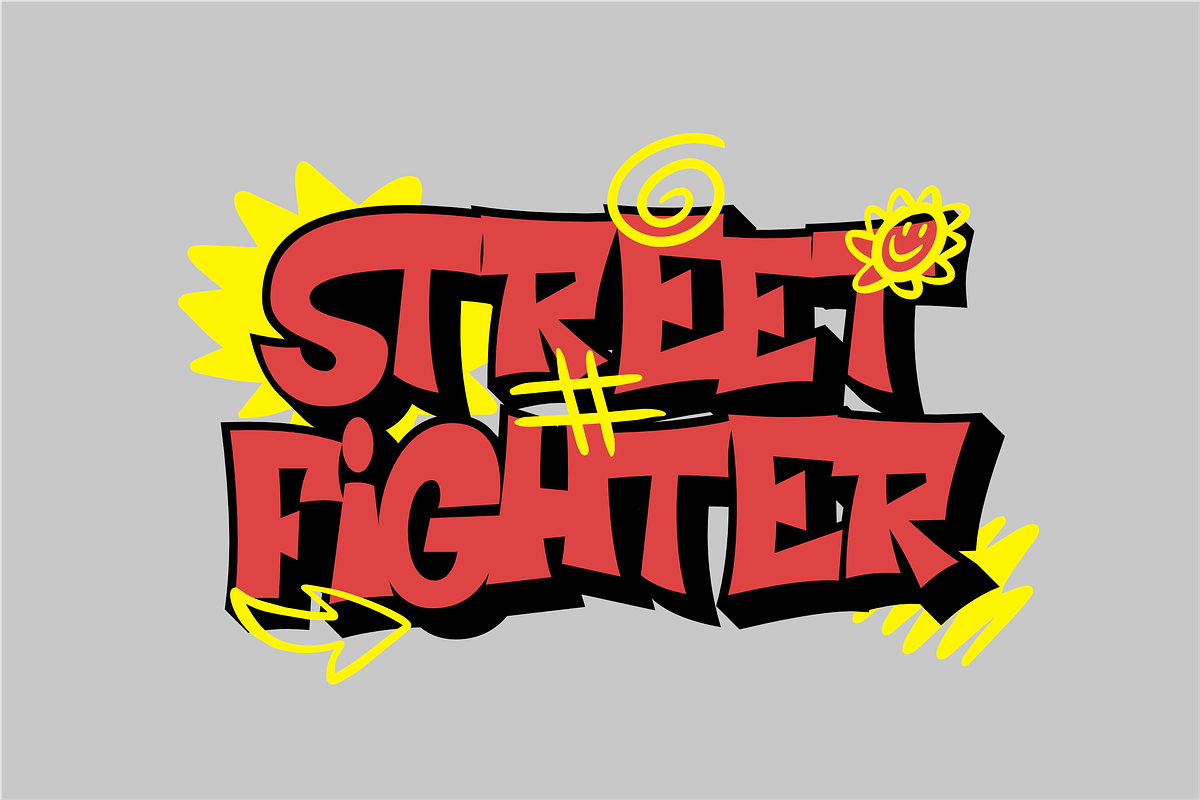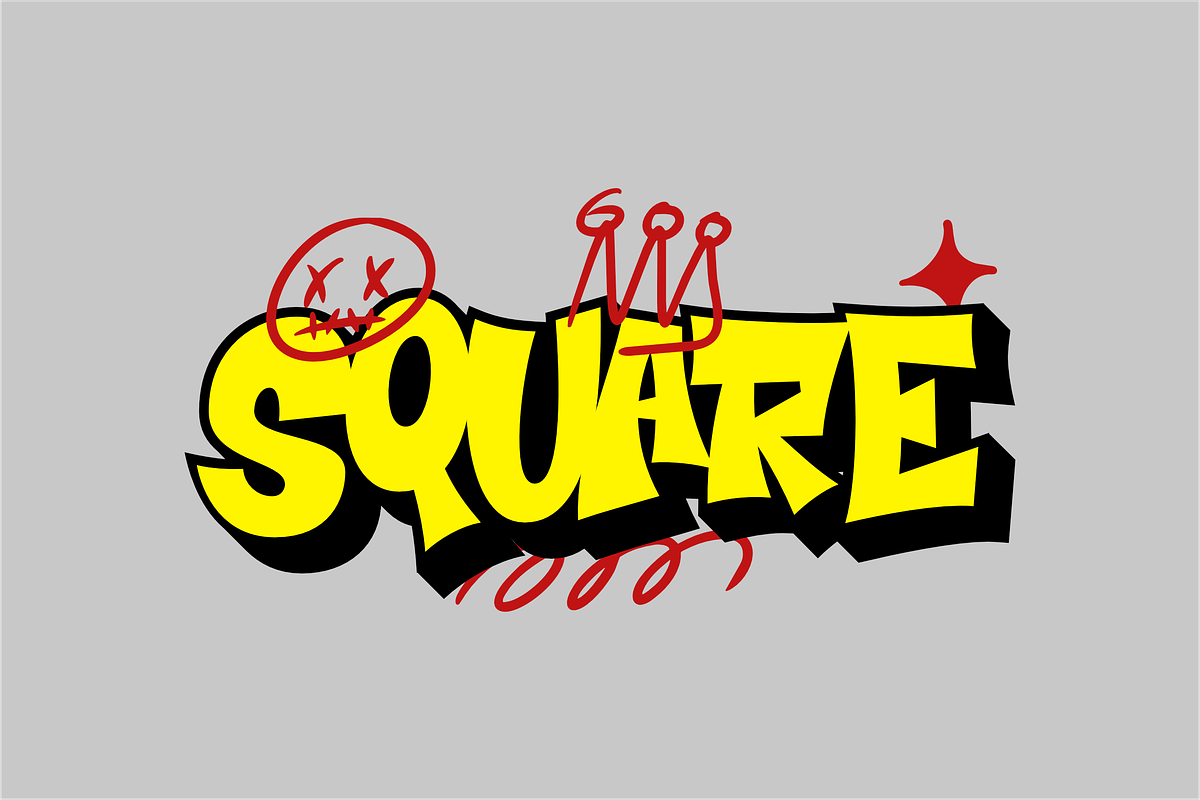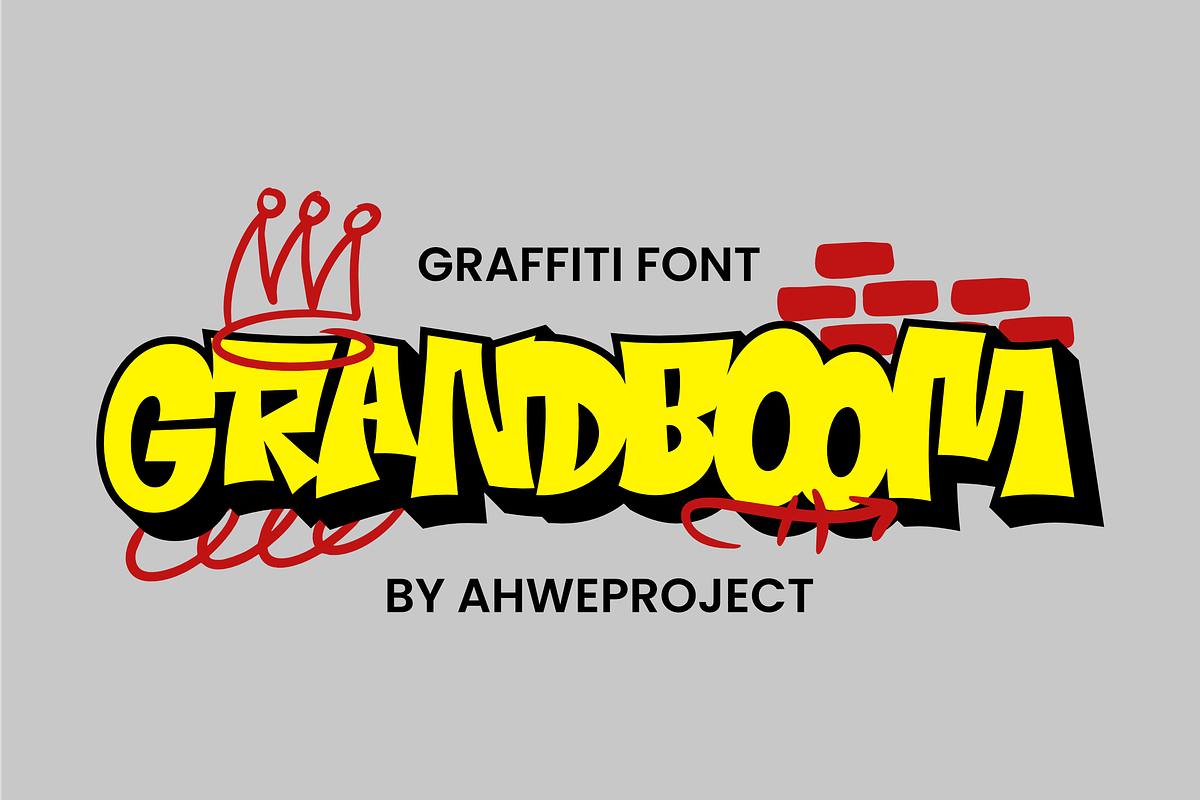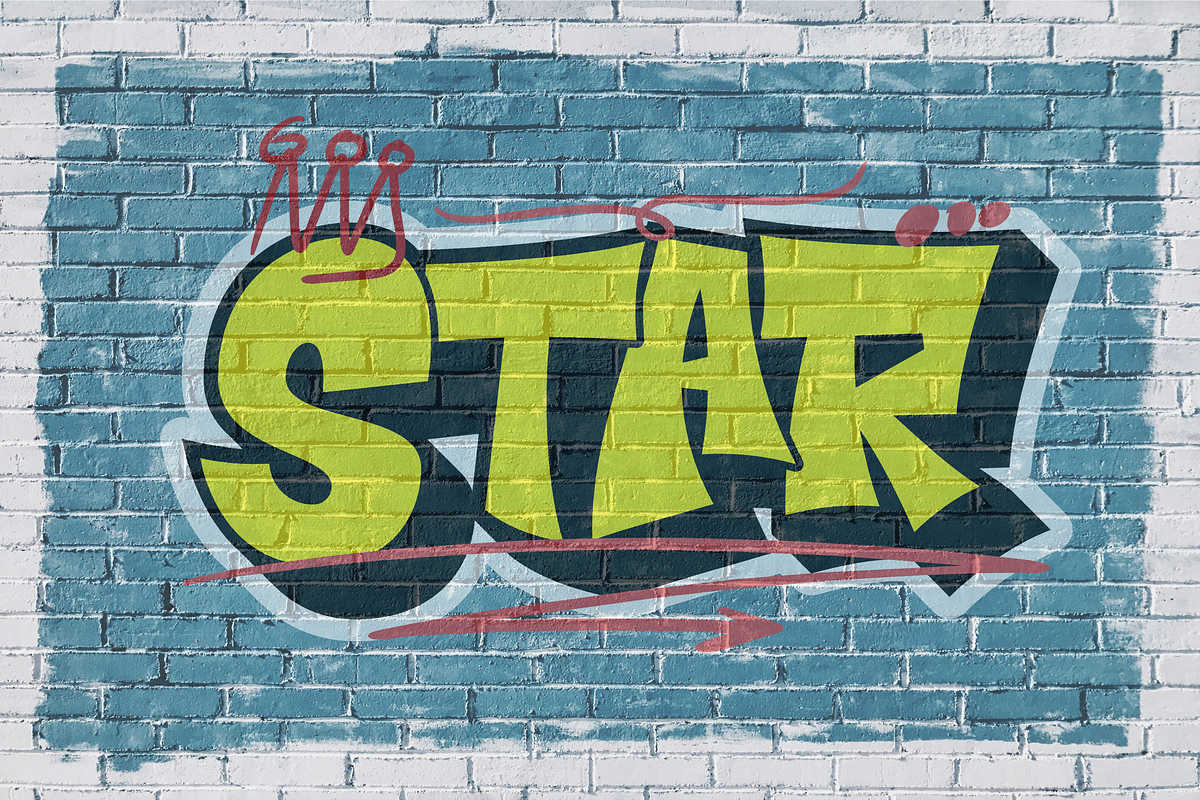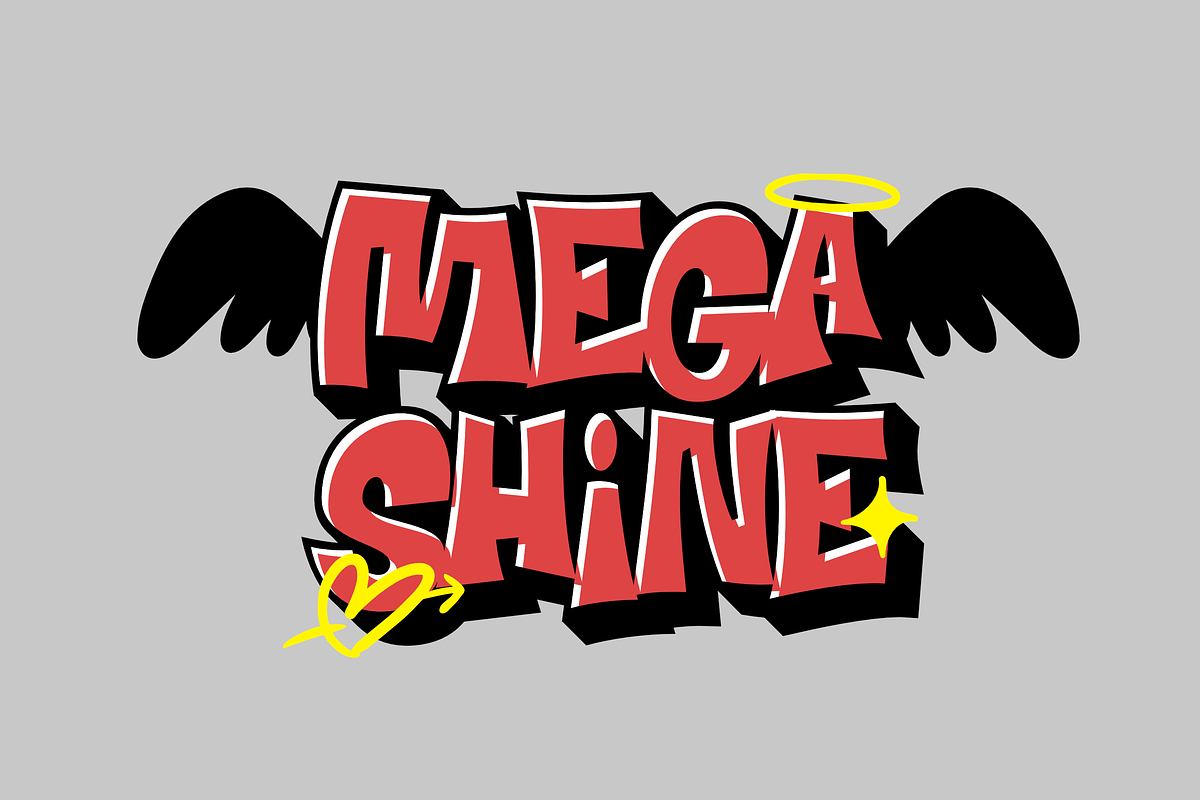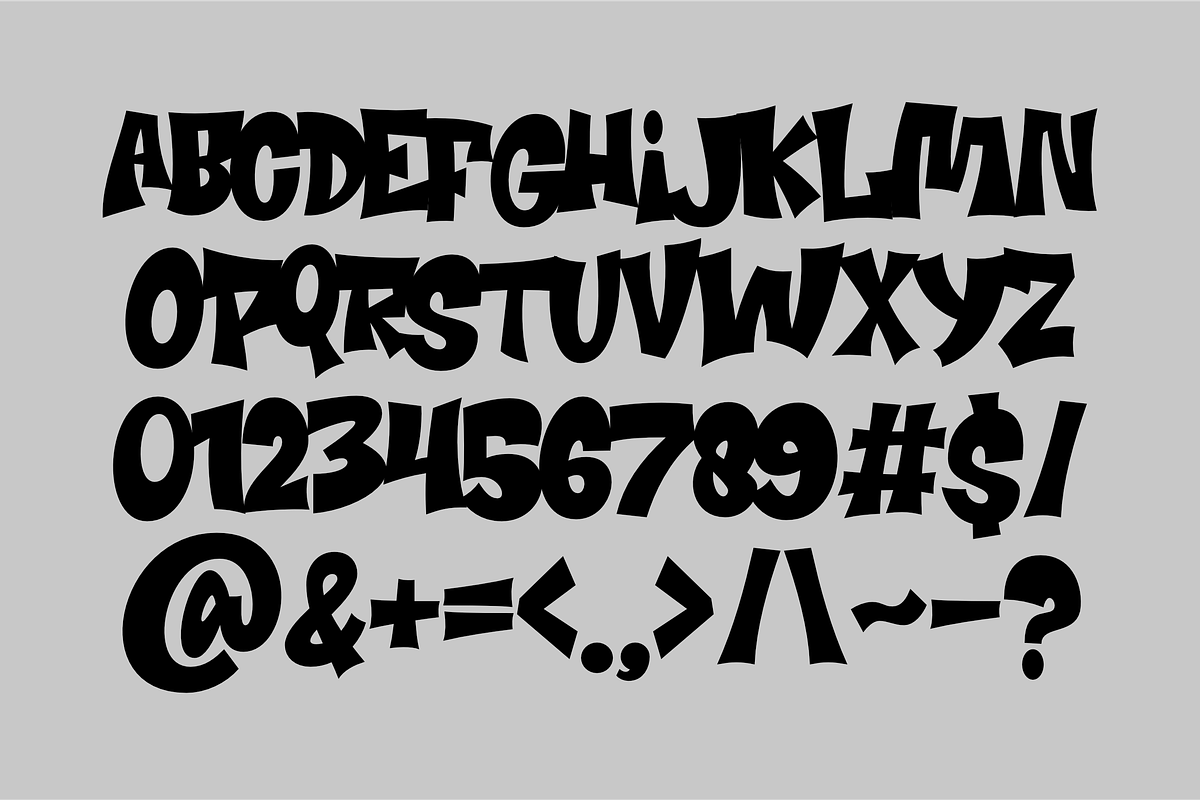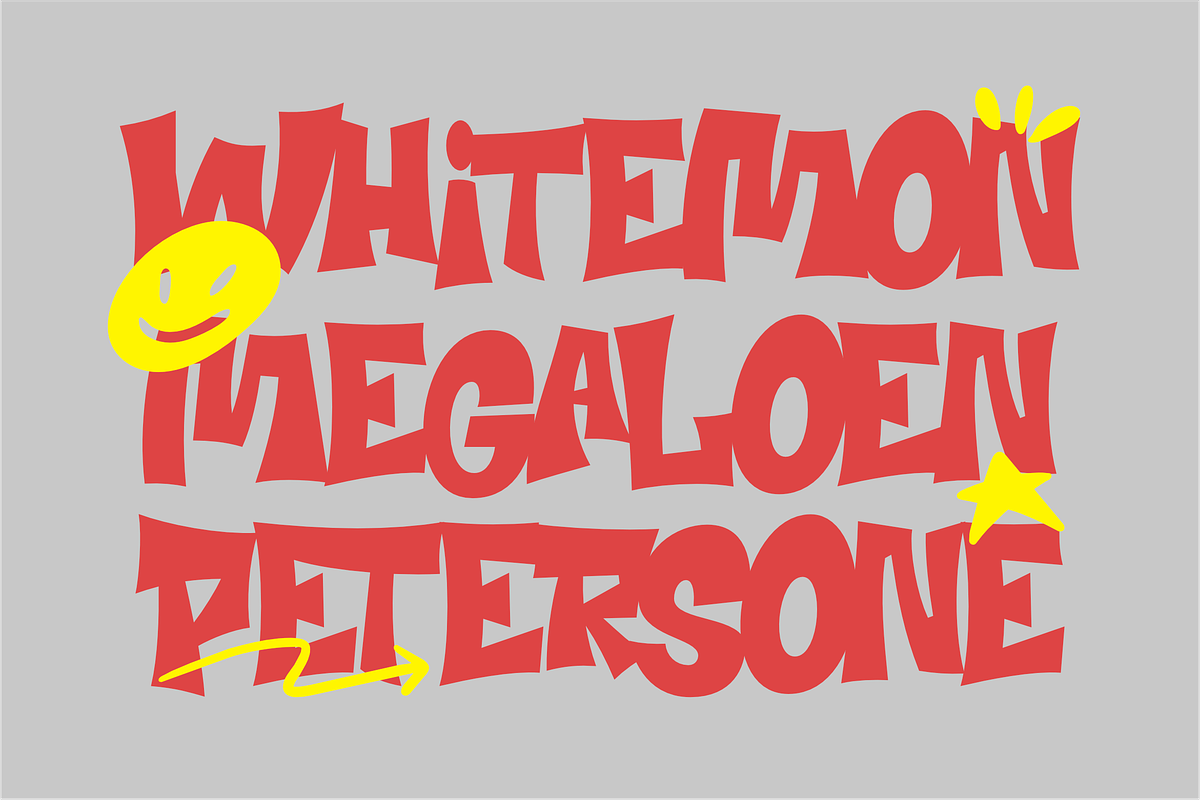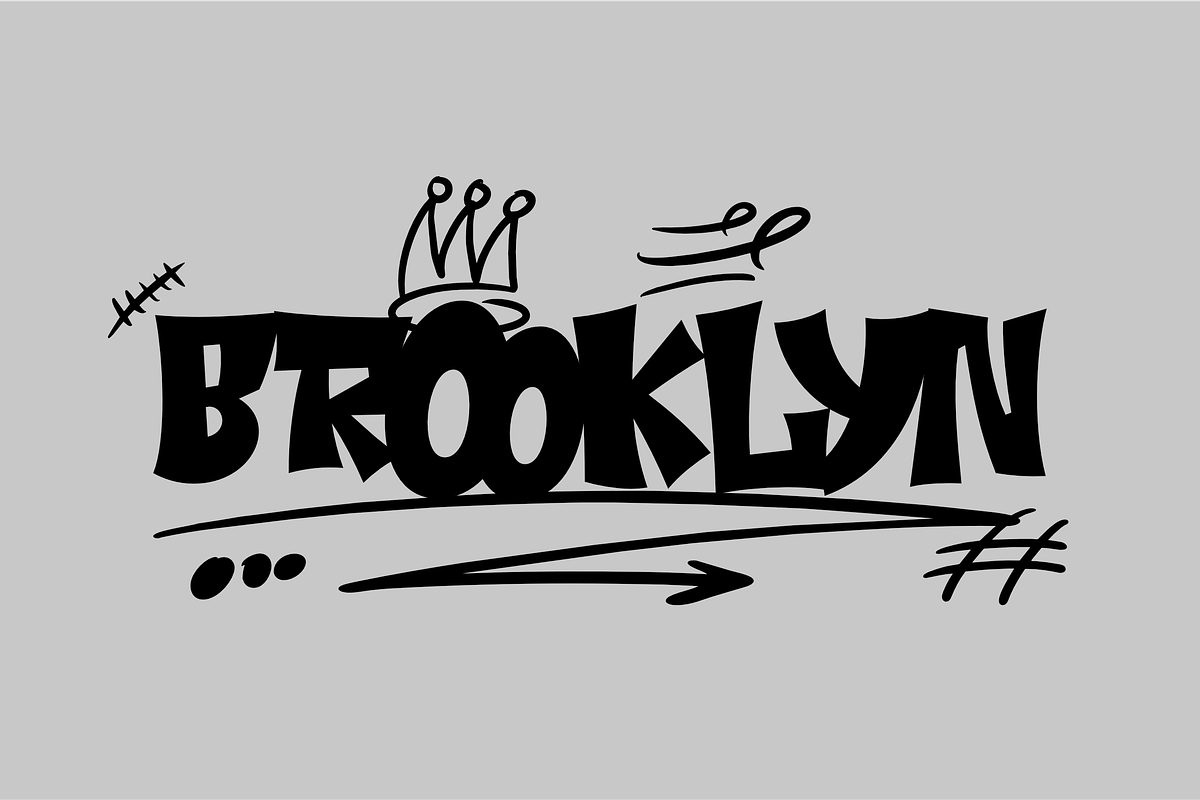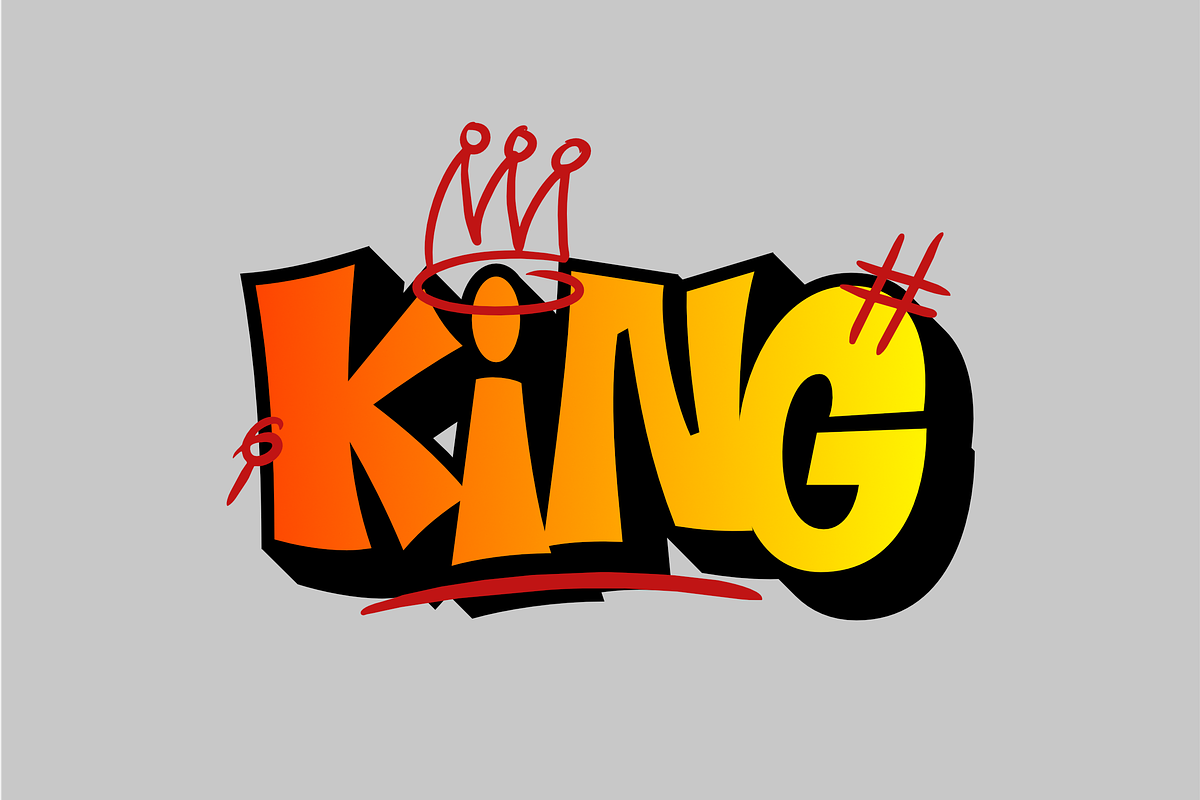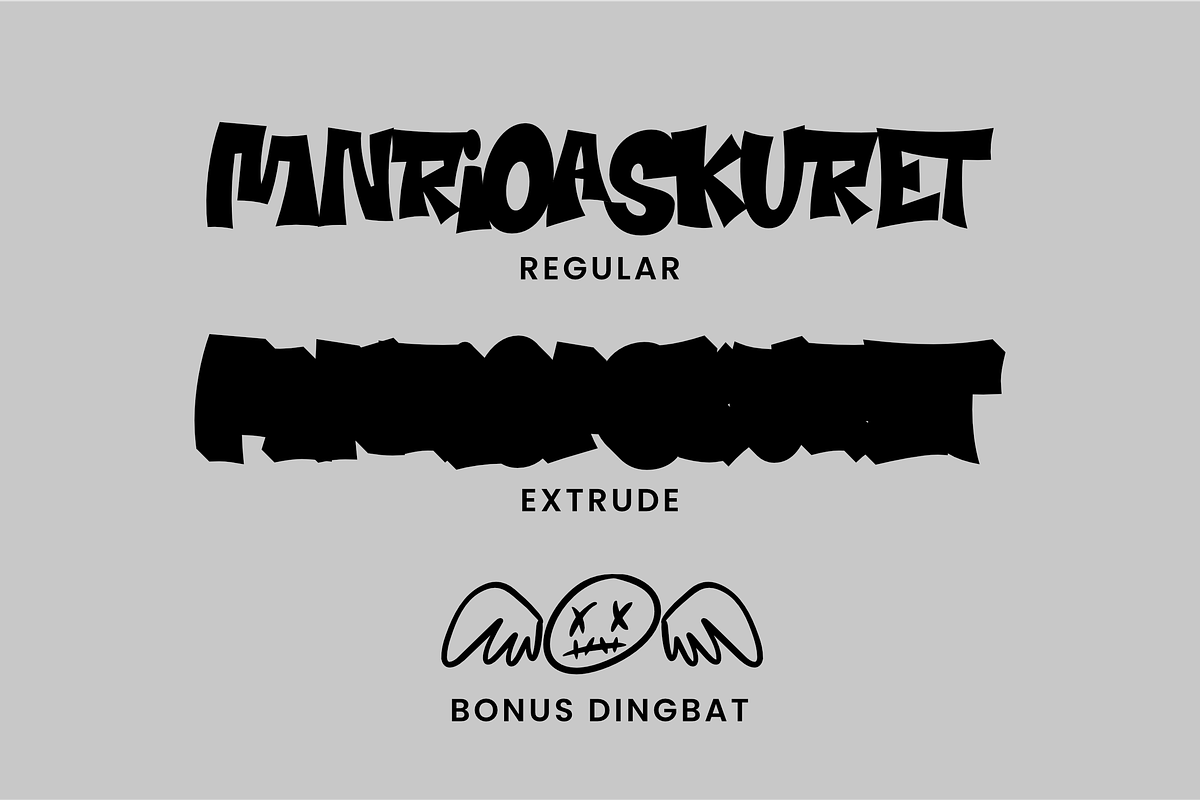
Grandboom
Grandboom is a bold and expressive graffiti-style font that captures the raw energy of street art. Its thick, dynamic strokes and exaggerated curves give it a rebellious and urban aesthetic. The letters have a strong 3D effect, often resembling the hand-drawn tags you’d see on city walls or subway cars. Grandboom is perfect for designs that need a gritty, edgy feel—whether for posters, streetwear branding, album covers, or urban-themed digital art. The font’s playful yet aggressive appearance makes it stand out while still being legible, adding a sense of movement and attitude to any design.